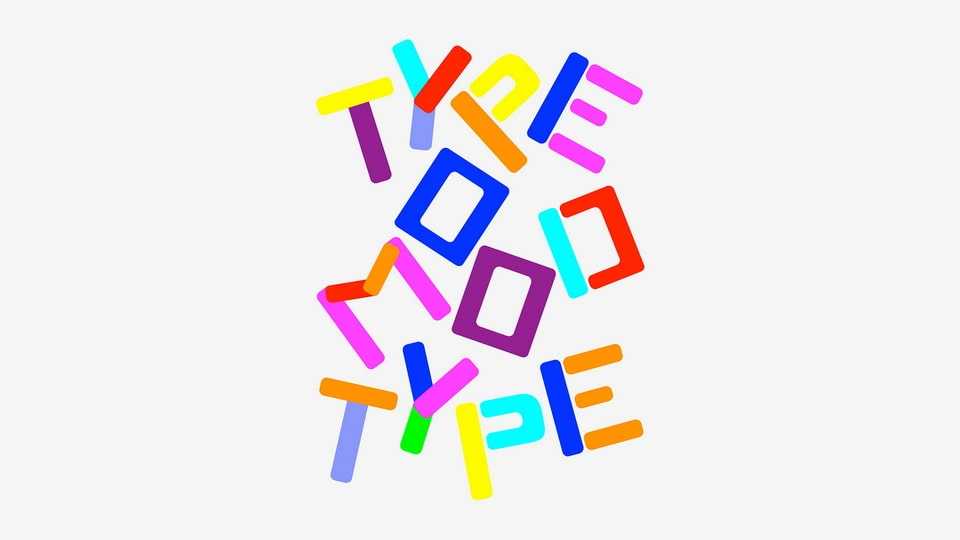
Moodtype Font › Fontesk – Download Grátis
Download Moodtype font, a sans-serif display typeface designed for the 36 Days of Type project. Moodtype’s concept explores the use of color combinations for each module, allowing it to evoke distinct moods.
Designer: David Rocha